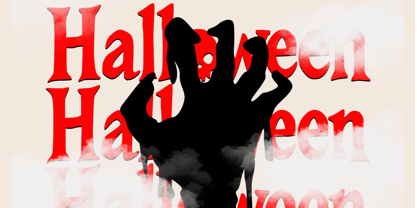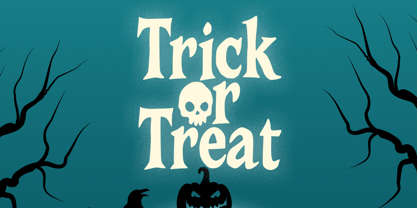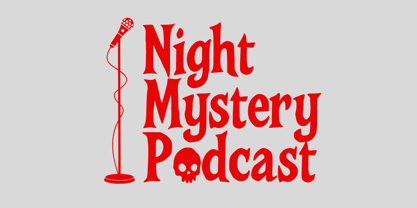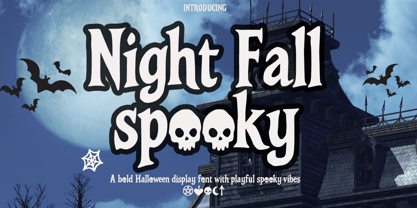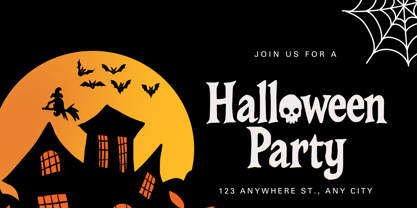
Night fall spooky
by Cocodesign
The Night fall spooky Font Family was designed by Muhammad Zaini and published by Cocodesign. Night fall spooky contains 2 styles and family package options. More about this family
Night Fall Spooky – Bold Halloween Display Font + Bonus Spooky Extra Night Fall Spooky is a bold display font with playful spooky vibes, perfect for creating fun and eerie Halloween-themed designs. Each letter features bold, irregular shapes with a hand-drawn touch, giving a lively and mysterious atmosphere. This font is ideal for Halloween posters, invitations, packaging, quotes, titles, and merchandise that need a bold and festive look.
Designers: Muhammad Zaini
Foundry: Cocodesign
Night fall spooky